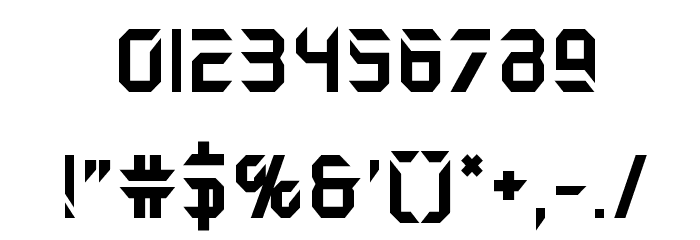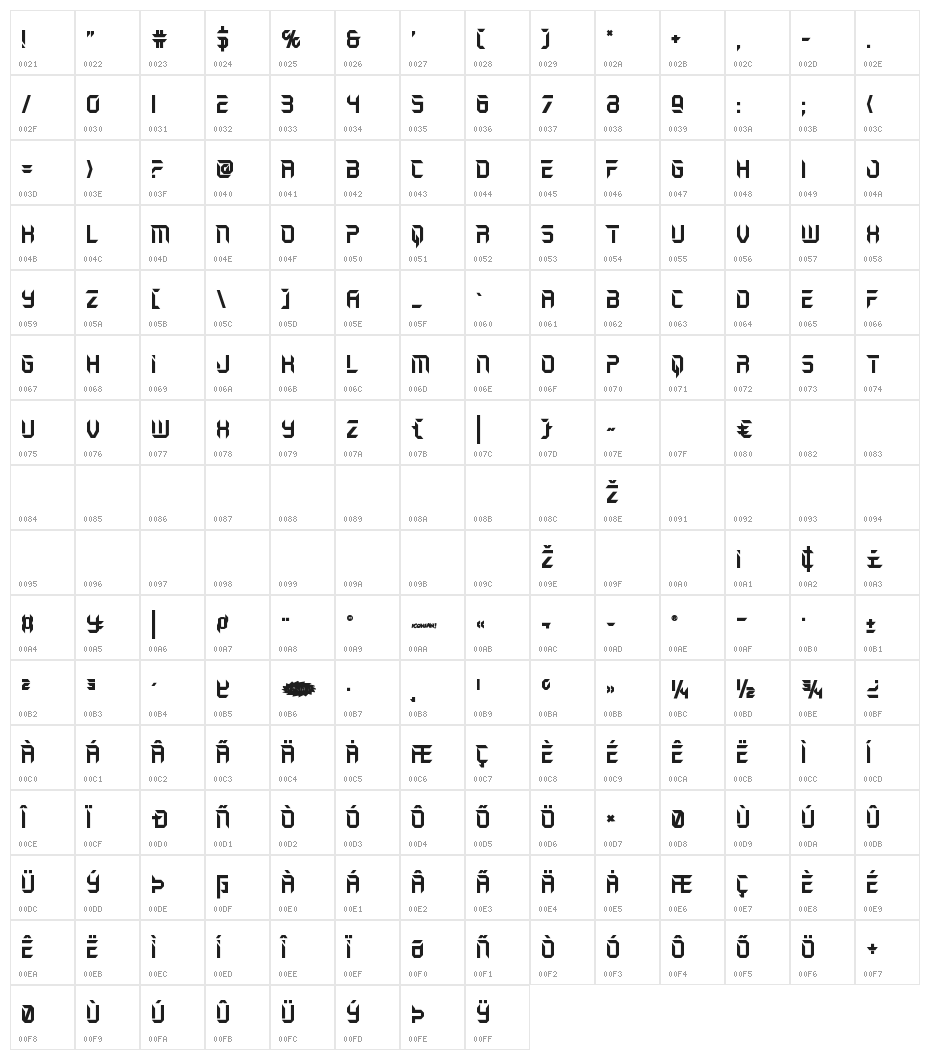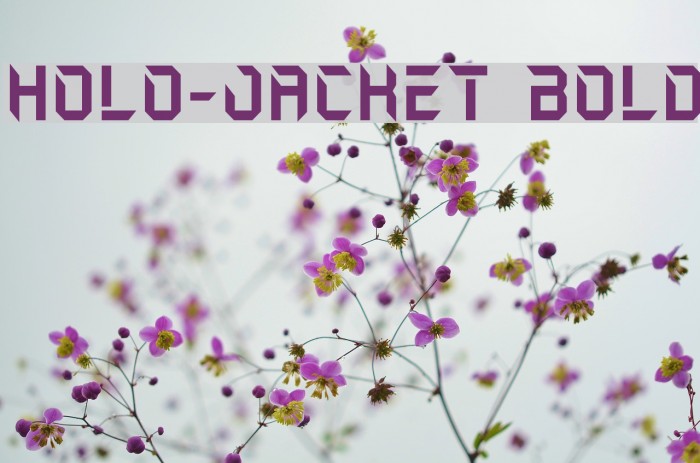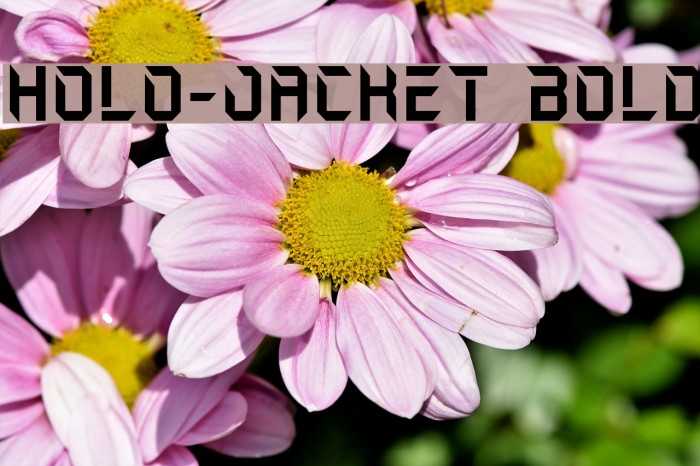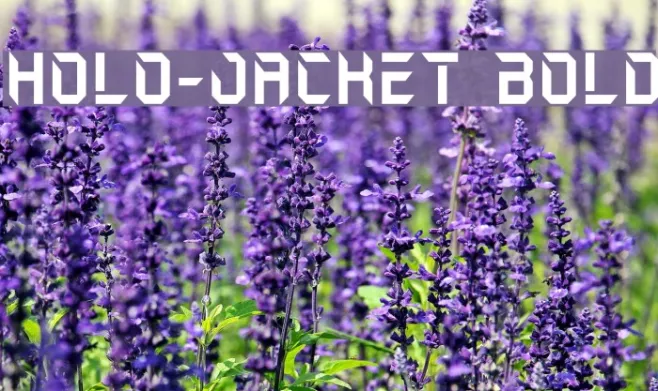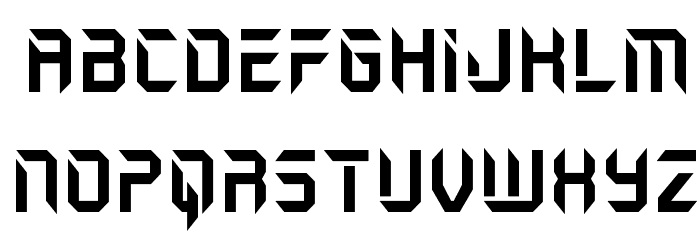
Holo-Jacket Bold Font
Holo-Jacket Bold Description
This font features a bold, futuristic design with sharp, angular edges and a geometric structure. Each character is crafted with precision, showcasing a unique blend of modernity and edginess. The uppercase and lowercase letters maintain a consistent style, emphasizing a sense of uniformity and cohesion. The numerals and special characters are designed to match the overall aesthetic, making the font versatile for various applications. Its distinct appearance makes it ideal for projects that require a strong visual impact.
| Proposed Projects | Ideal for sci-fi themed projects, tech branding, video game titles, and futuristic posters. |